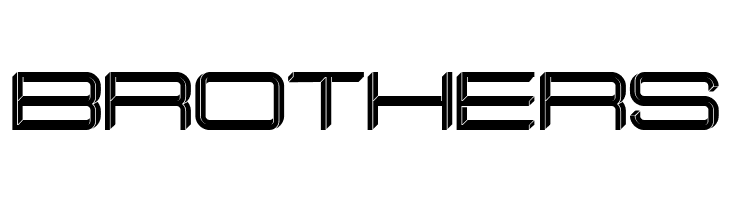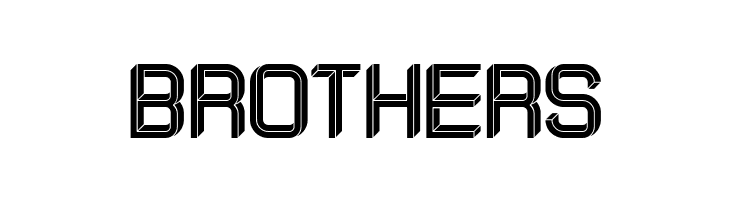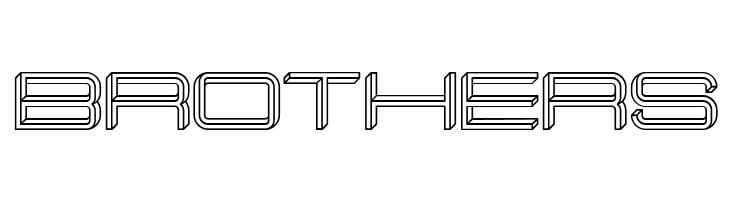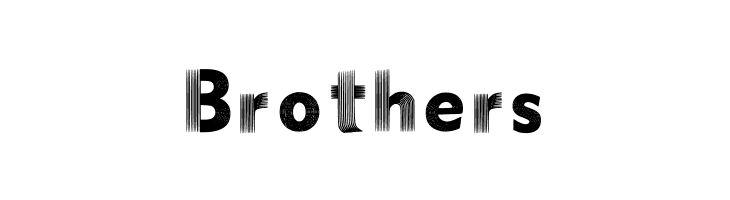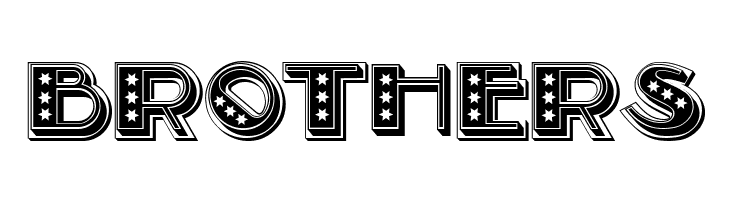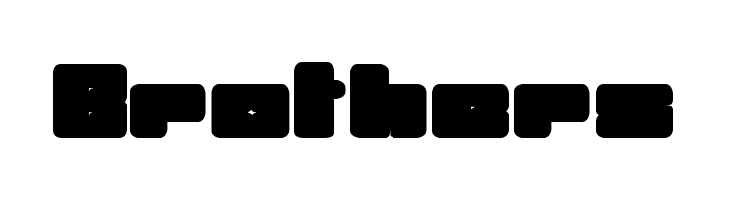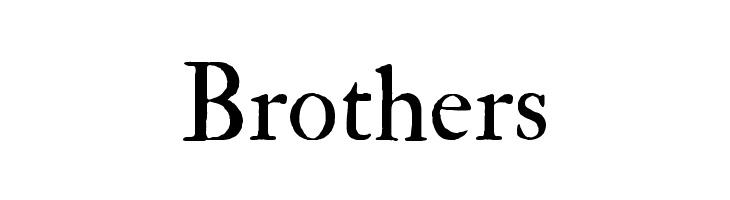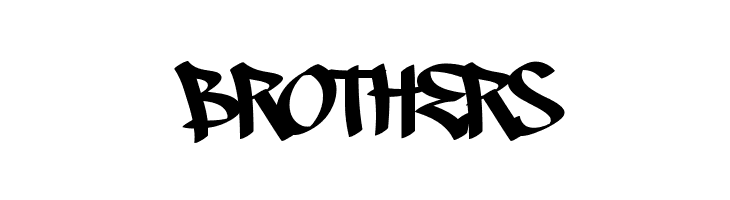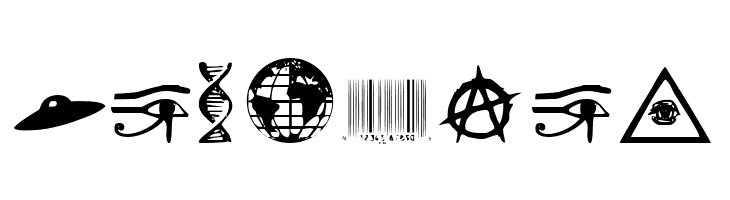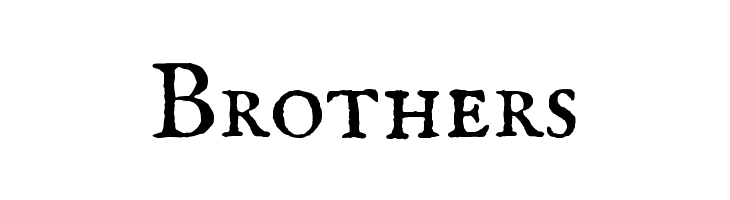
A bold, angular font with a geometric and aggressive style.
A bold, decorative font with stars and stripes, ideal for standout designs.
A decorative dingbat font with conspiracy and secret society iconography.
A bold, geometric font with thick, block-like shapes for a strong, modern look.
A bold, 3D geometric font with a futuristic and digital style.
A bold, geometric font with a block-like, outlined design.
A bold, futuristic font with a unique striped pattern and dynamic visual effect.
A bold, futuristic font with a halftone effect and block-like forms.
A bold, futuristic font with a geometric, digital design.
A bold, geometric font with a 3D illusion effect and condensed style.
( Illusion )
A visually striking font with an illusionary effect created by parallel lines.
A hollow, three-dimensional font with a geometric and modern style.
A futuristic hollow font with geometric outlines and a modern aesthetic.
A futuristic, geometric font with outlined characters and a modern aesthetic.
( JosefinaTol )
A decorative font with elegant swirls and vintage calligraphic elements.
A bold, decorative font with artistic illustrations within each letter.
A bold, rounded, and modern font with a playful and approachable style.
A modern, circular-themed font with bold geometric shapes.
An elegant script font with flowing, cursive characters and intricate flourishes.
A modern, clean font with smooth curves and balanced structure.
An elegant, italic serif font with medium contrast and classic style.
A classic serif font with a historical and elegant design.
A classic serif font with elegant, high-contrast strokes and pronounced serifs.
A classic serif font with a historical and authoritative style.
A classic serif font with a historical and elegant style.